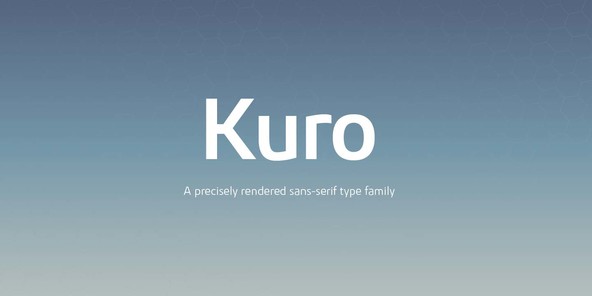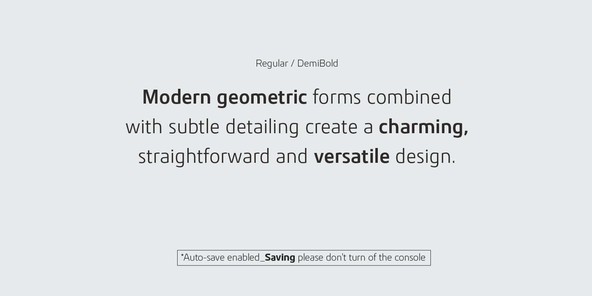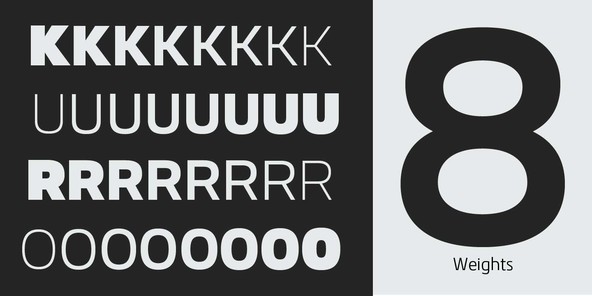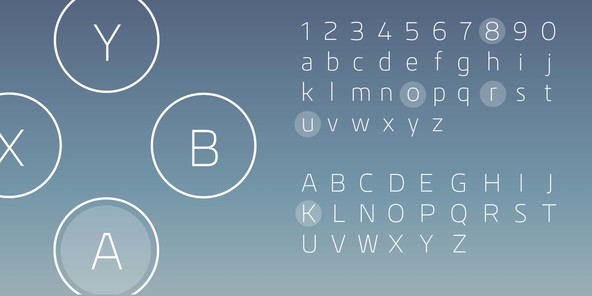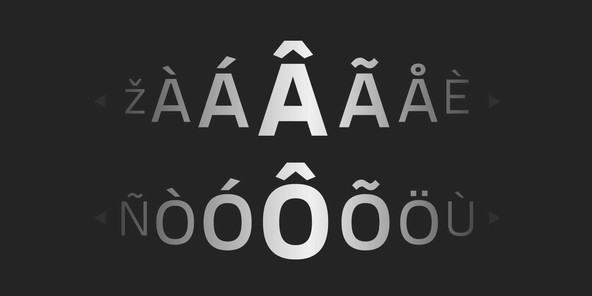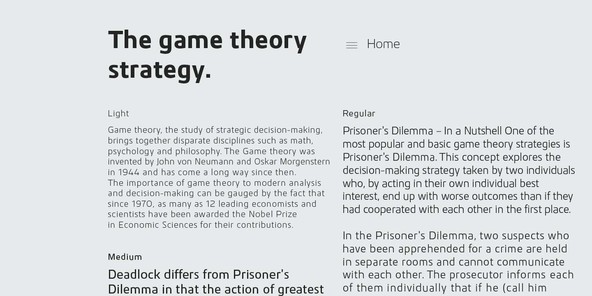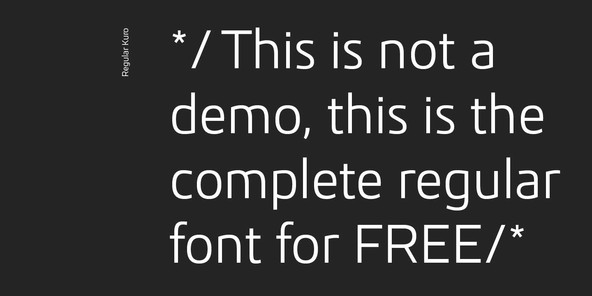
A precision drawn sans-serif typeface. Simple geometric forms are combined with accurate detailing to create a charming, straightforward and uniform font. Careful attention has been paid to white space areas making the font appear brighter across text layouts. Details include 9 weights, over 460 characters, manually edited kerning and Euro symbol.